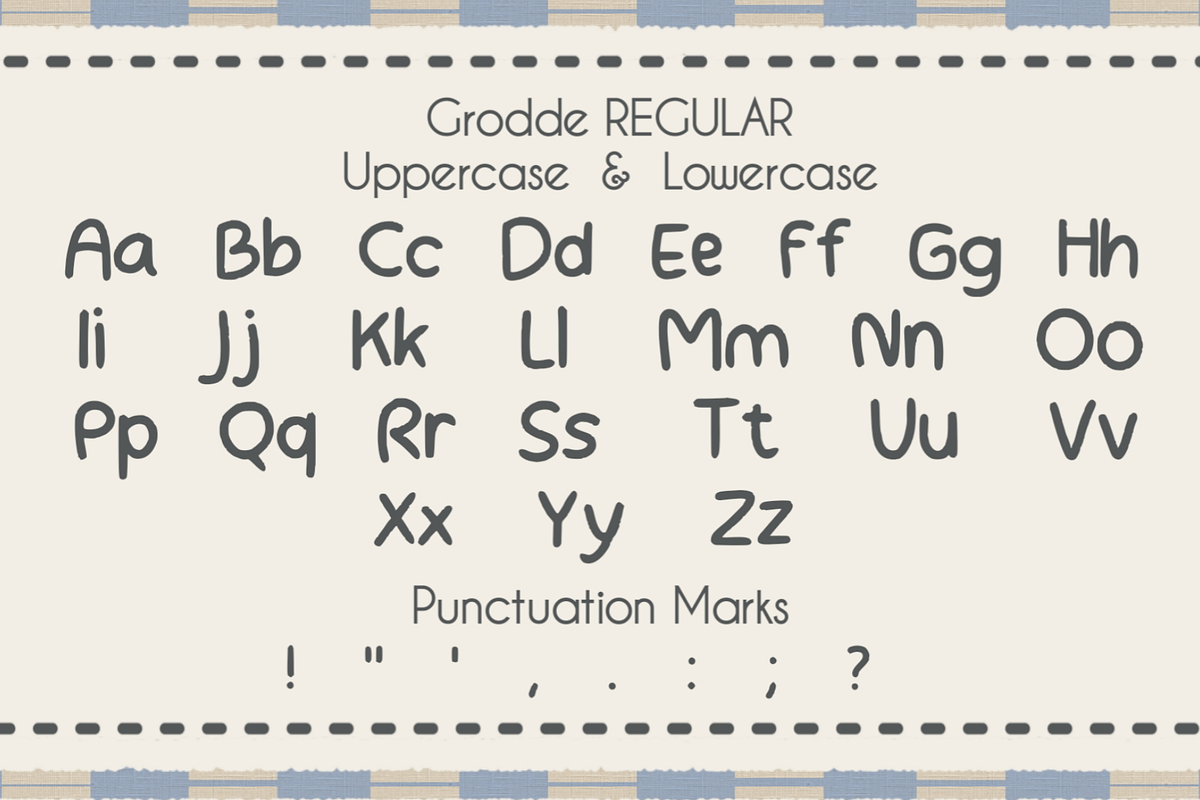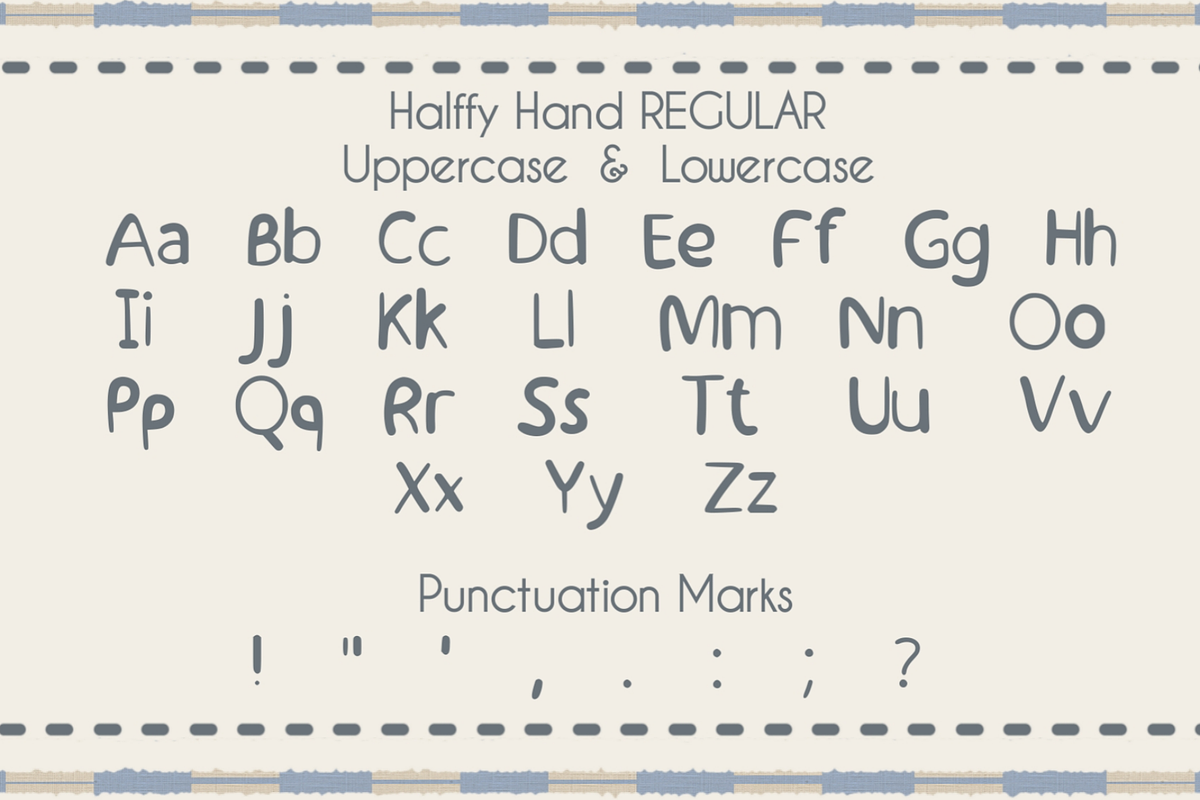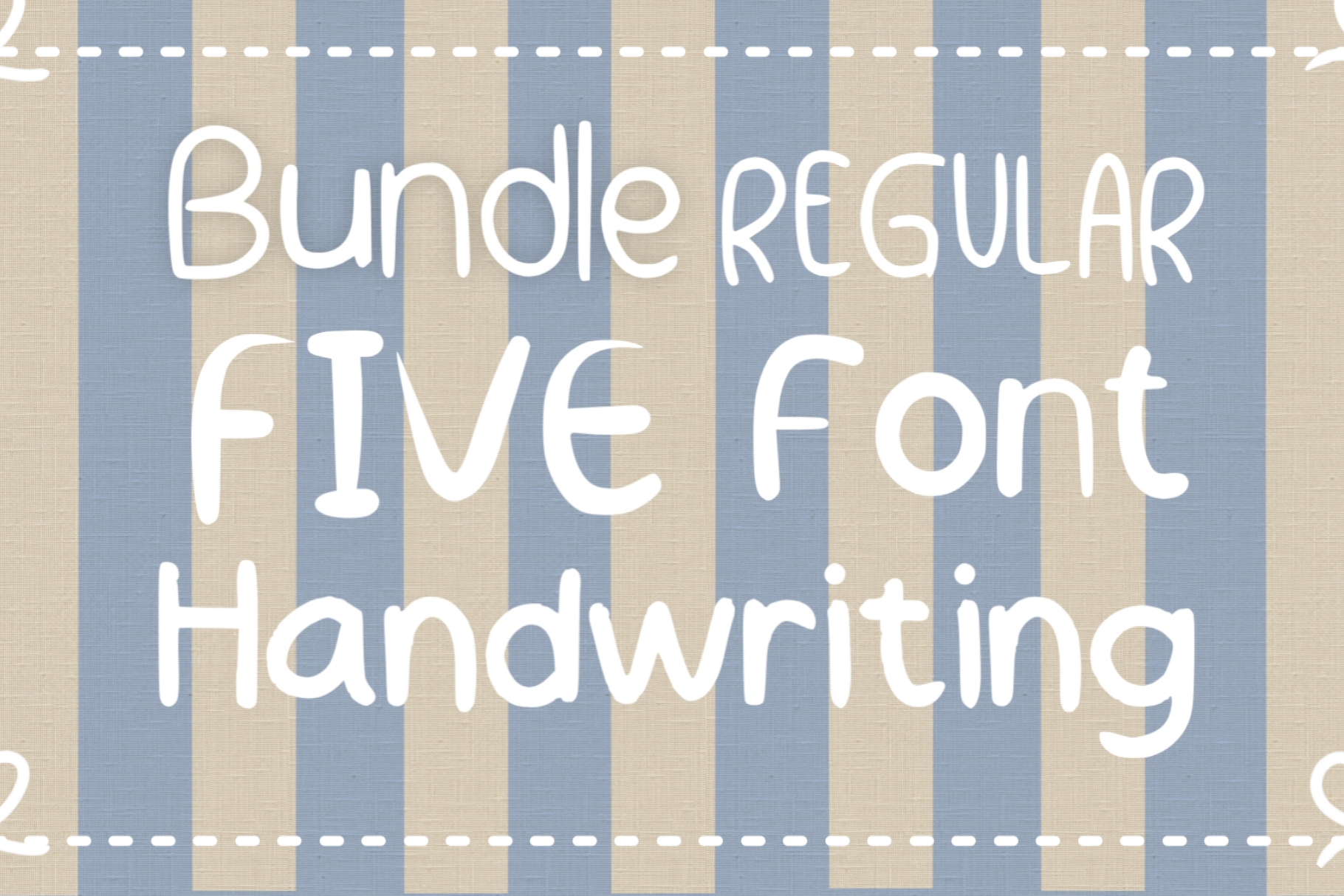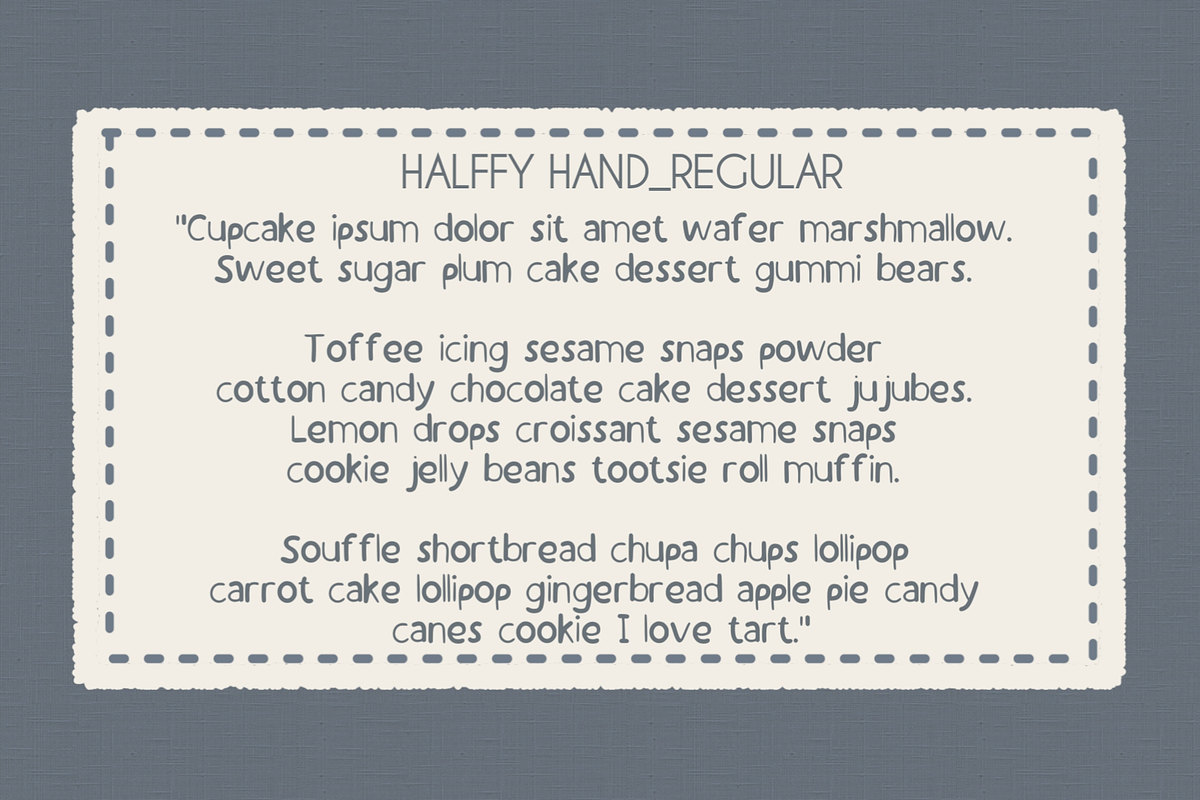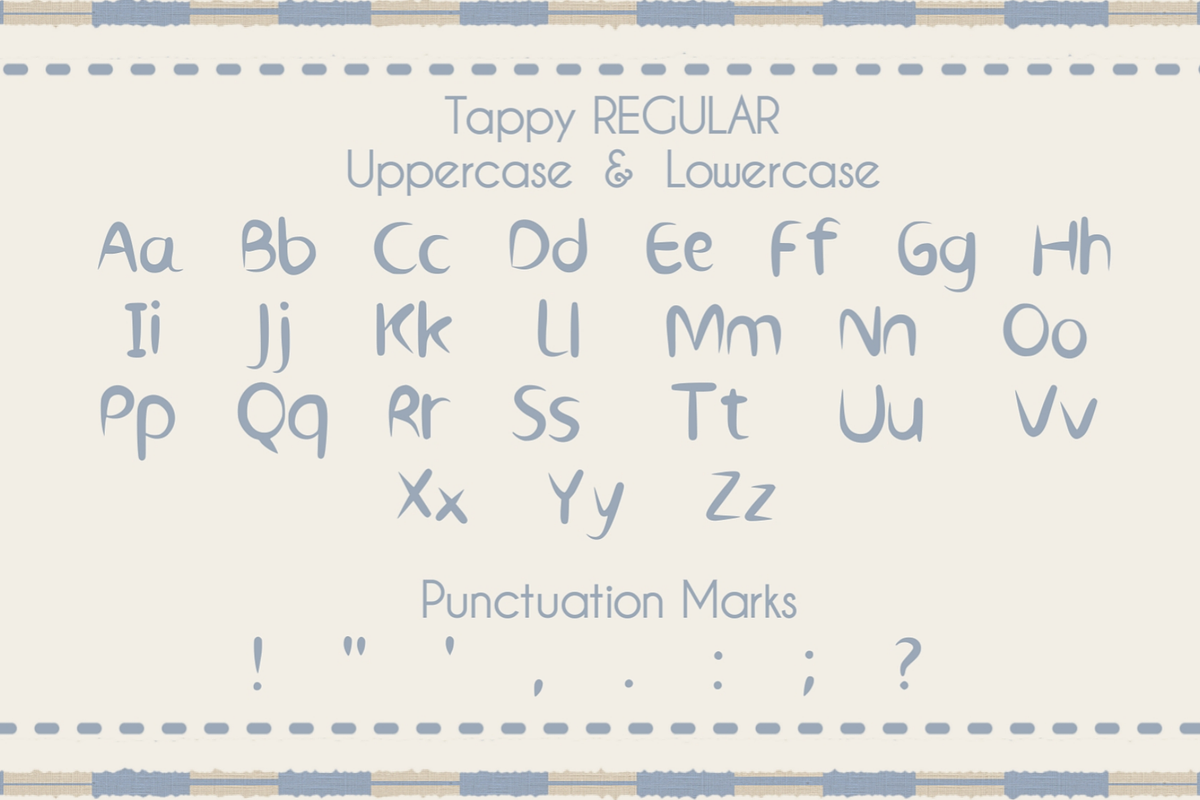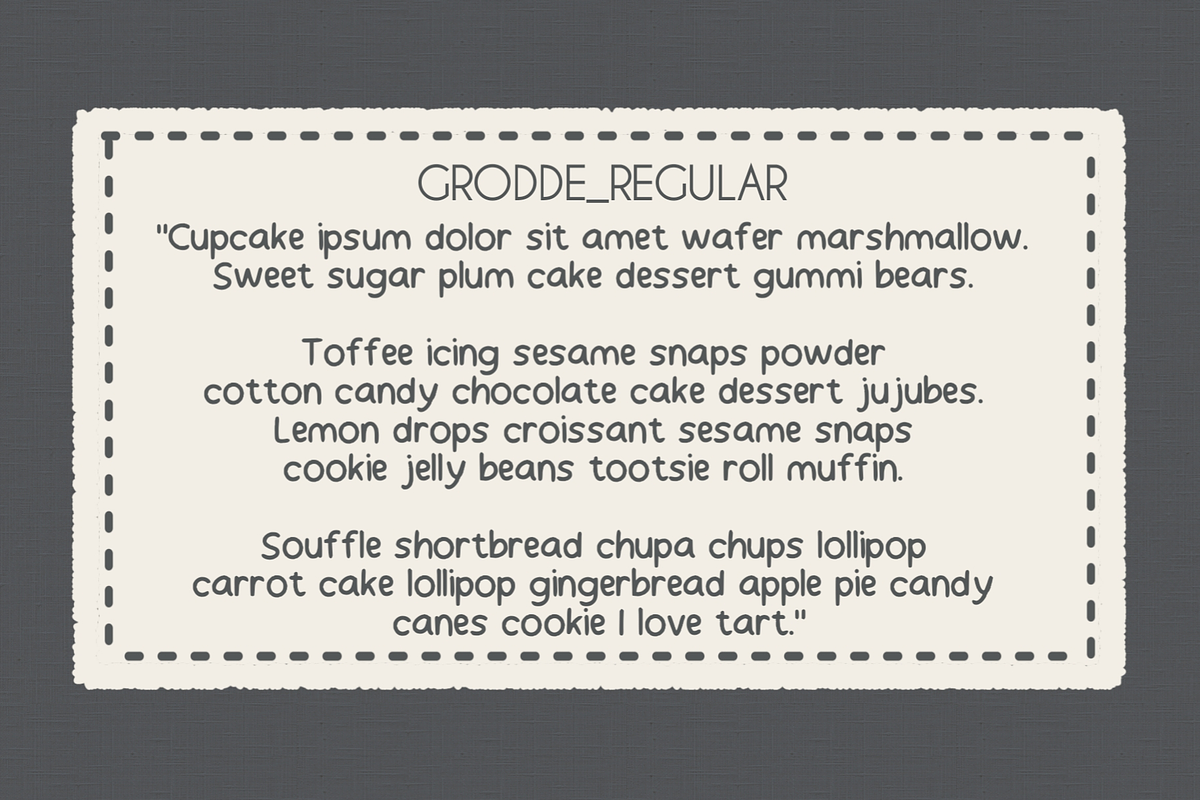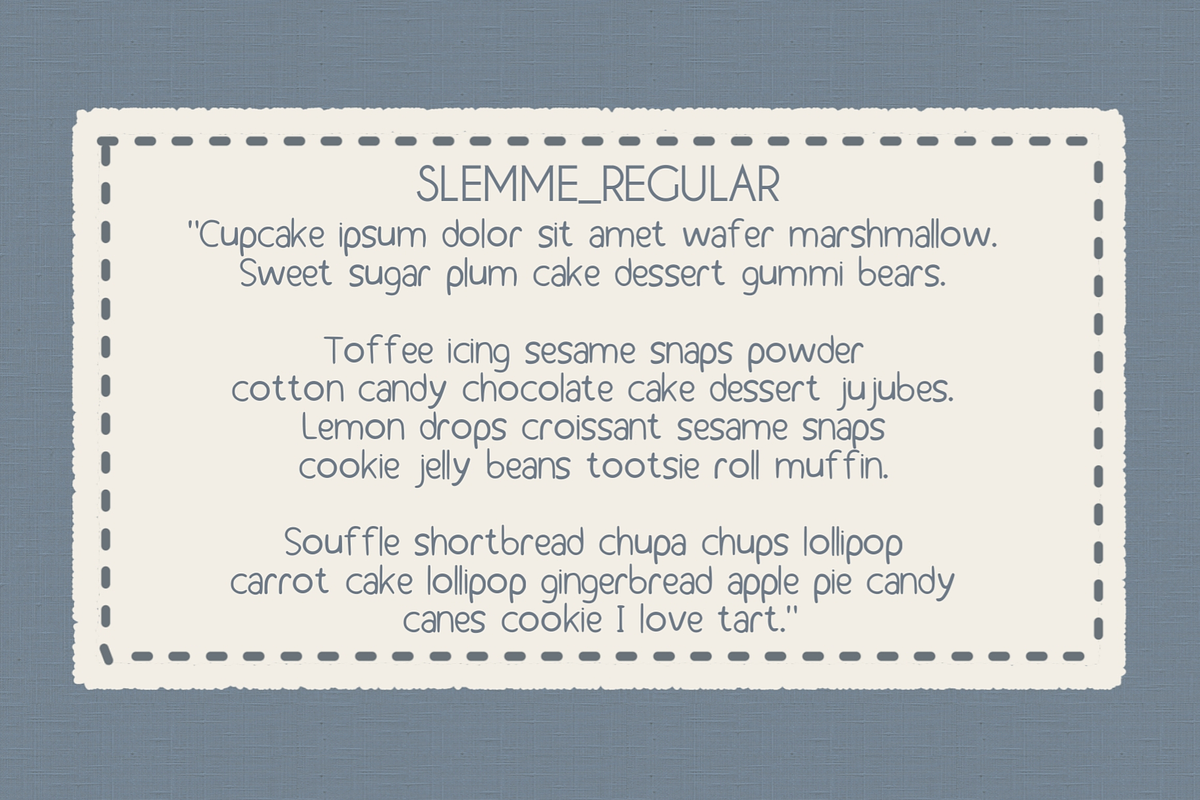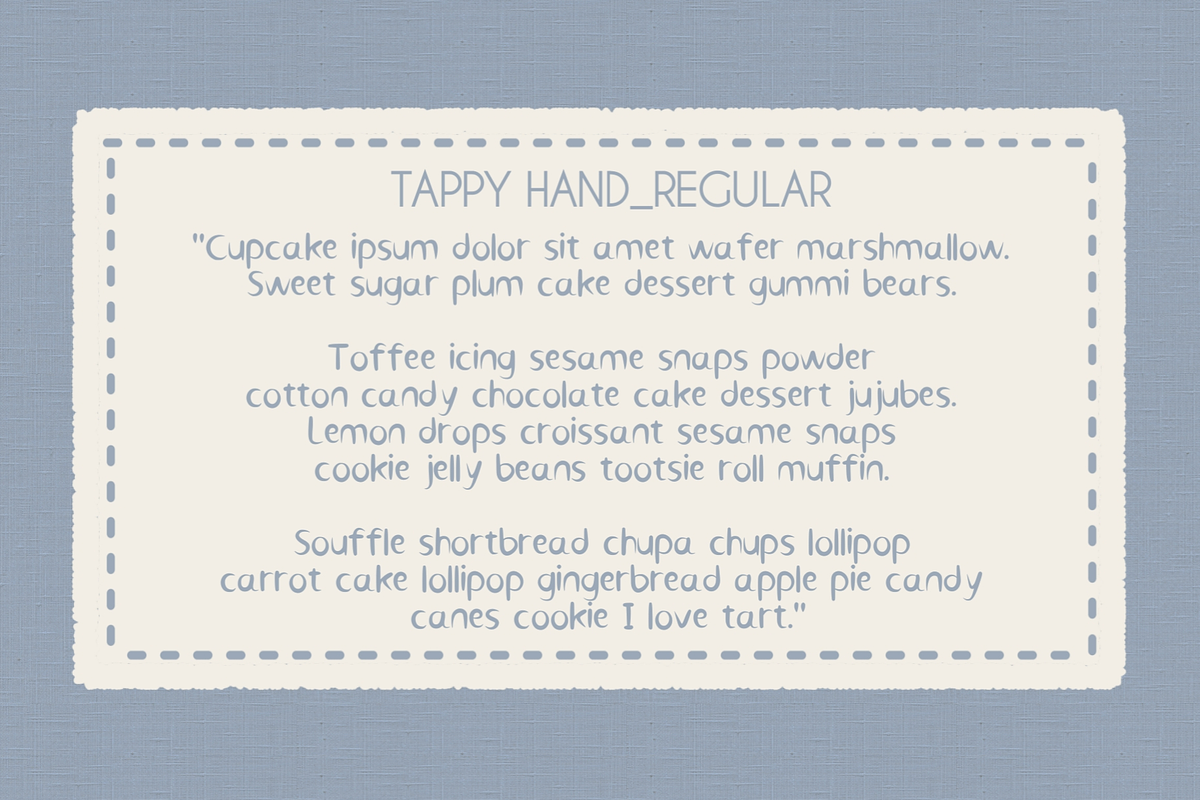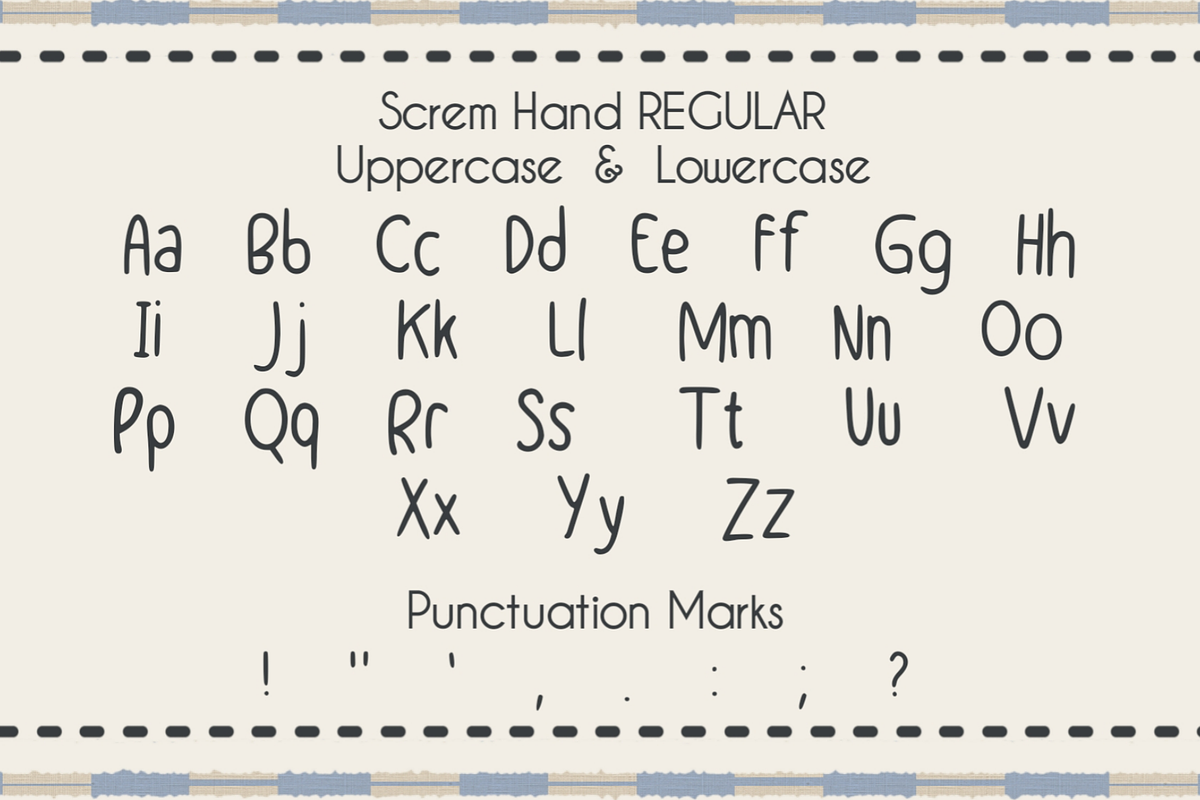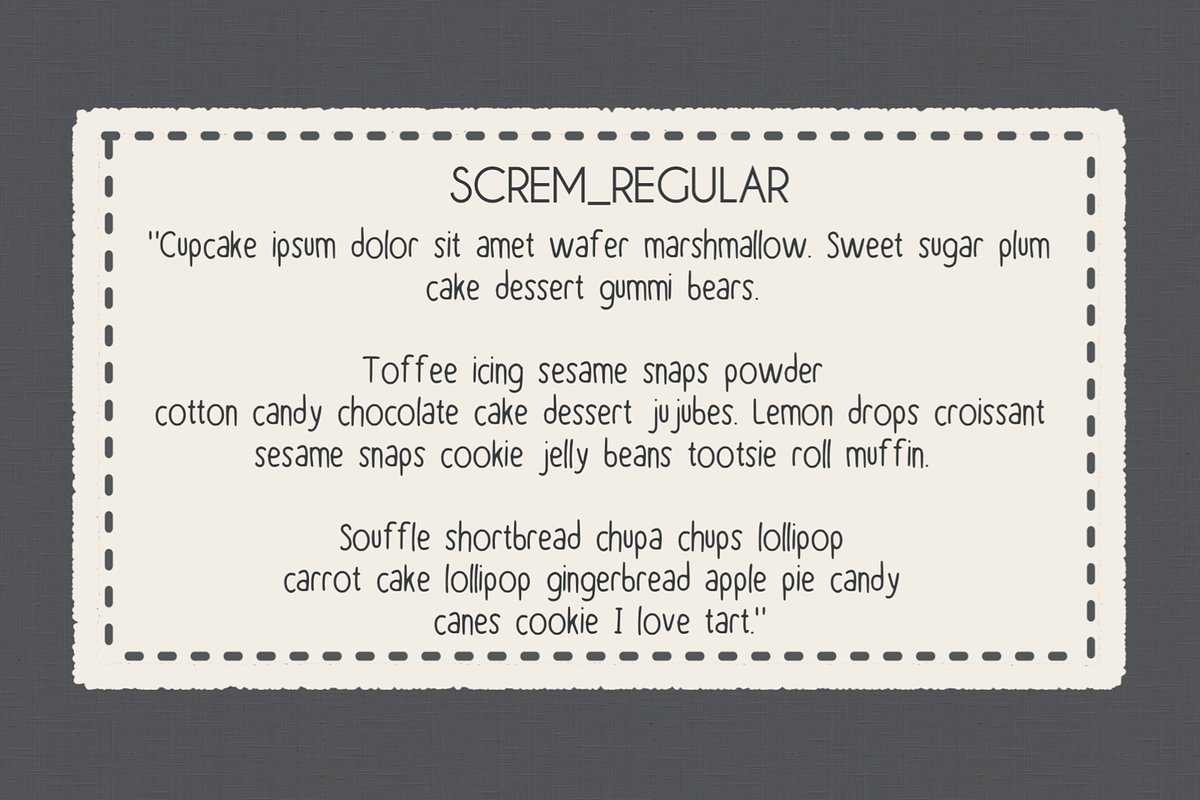
Handwriting Regular Font Bundles
A curated collection of 5 stunning fonts designed to bring character and elegance to your creative projects.
**What's Included: **
✔ 5 unique font styles
✔ Minimal English text support
✔ Uppercase & lowercase letters
✔ Basic punctuation marks